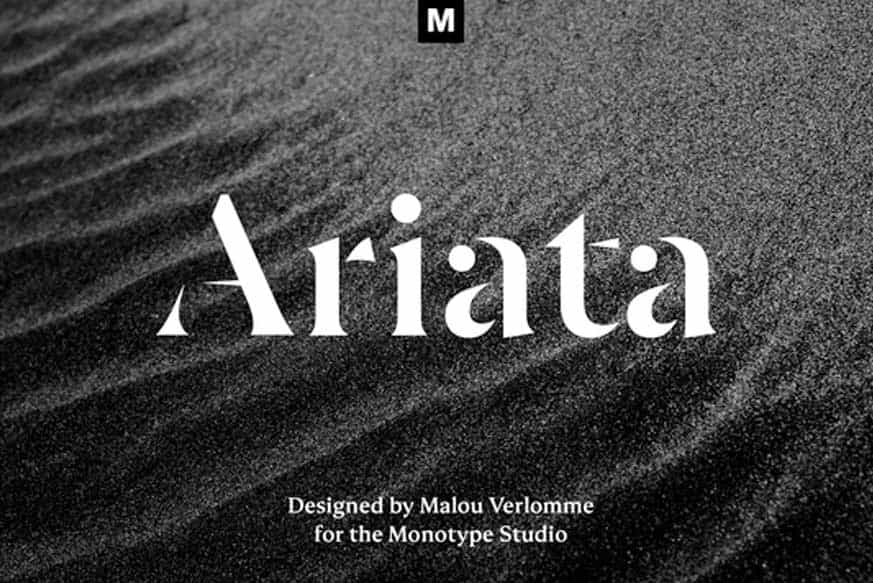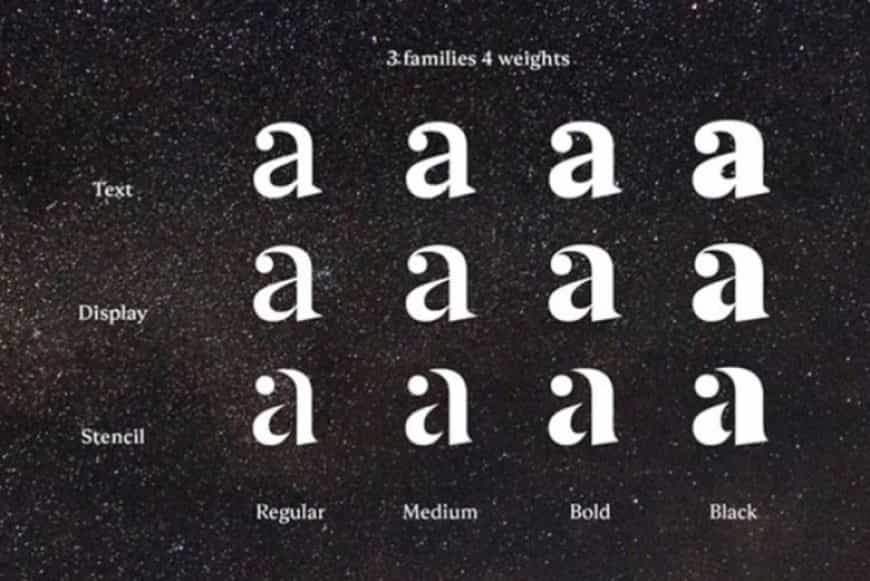
Ariata Font Family
Ariata The Text weights and Display versions each have three separate designs, each transitioning smoothly between them just like the phases of the moon. Furthermore, by mixing these versions together you will get your own individual typeface directions (such as “sharp”), with plenty of support for various text sizes.